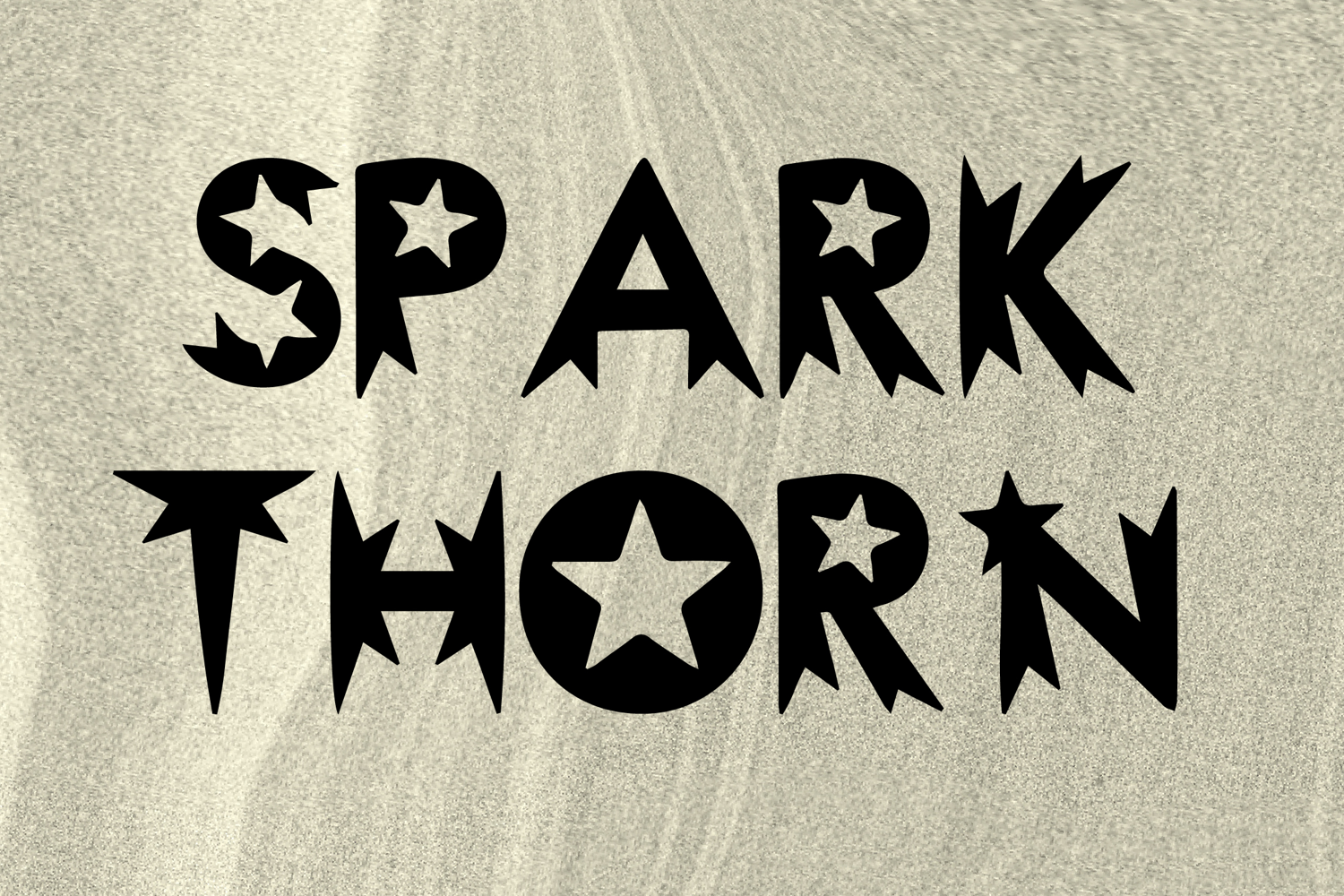
Sparkthorn
Sparkthorn is a bold decorative display font with a sharp geometric style and striking star-inspired character. Its uppercase letterforms feature strong angular cuts, pointed thorn-like edges, and standout star cutout details that create a dramatic, edgy, and eye-catching look. Designed with uppercase letters A–Z and numbers 0–9, Sparkthorn is perfect for logos, branding, posters, packaging, headlines, party designs, and creative projects that need a powerful and memorable statement.